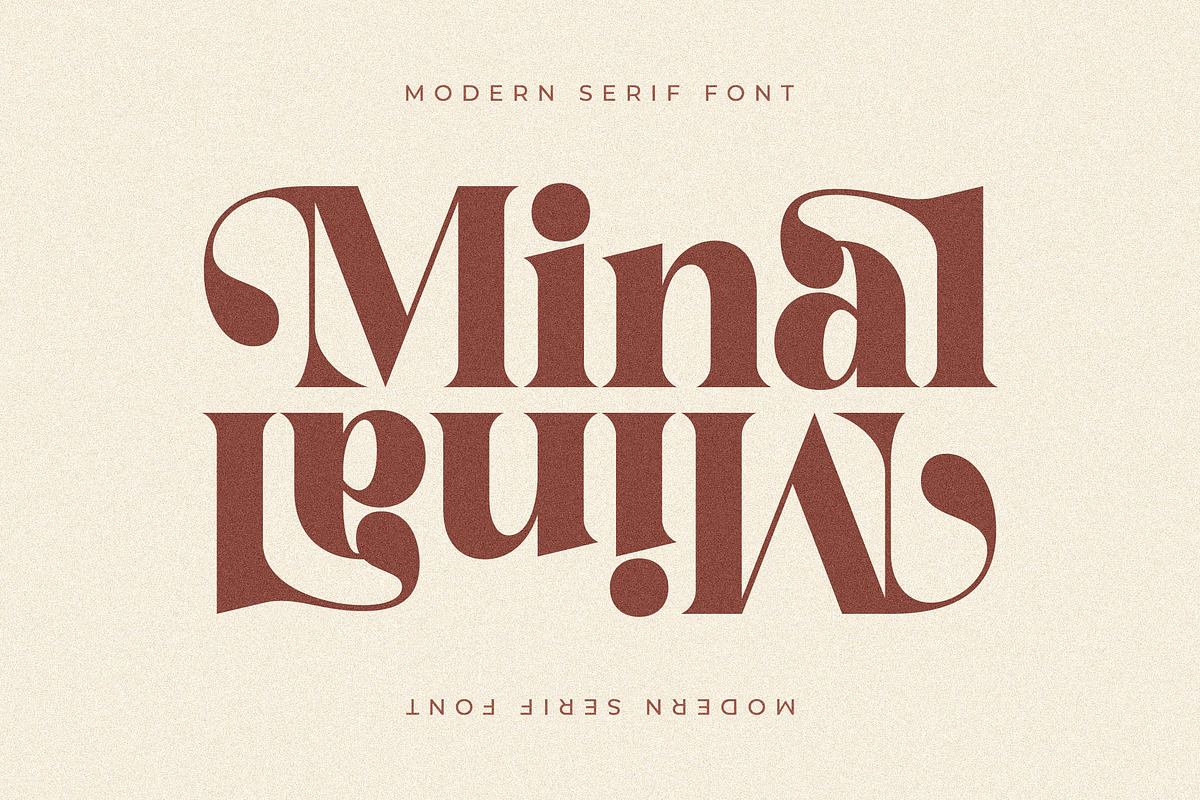
Minal Modern Serif Font Free Download
Minal Modern Serif Font Free Download is a sleek and elegant typeface that blends classic serif features with a clean, contemporary twist. With its high contrast strokes, refined shapes, and stylish details, Minal is ideal for branding, fashion editorials, luxury packaging, magazine titles, and minimalist web design.
Designed for clarity and visual impact, Minal brings a sense of professionalism and modern sophistication to any project. Its versatile character set and graceful structure make it perfect for both headlines and body text, allowing for a cohesive, upscale design aesthetic.